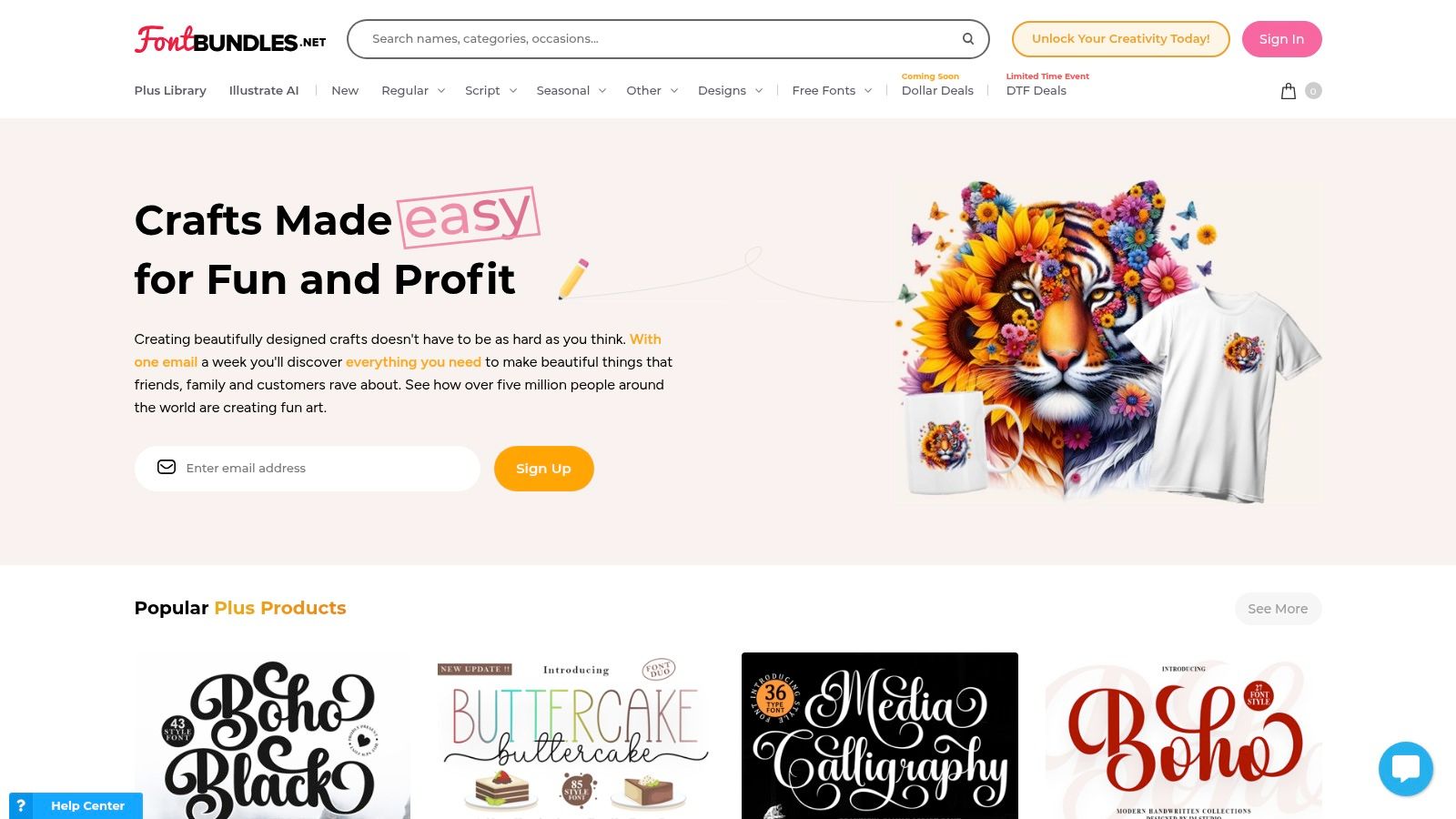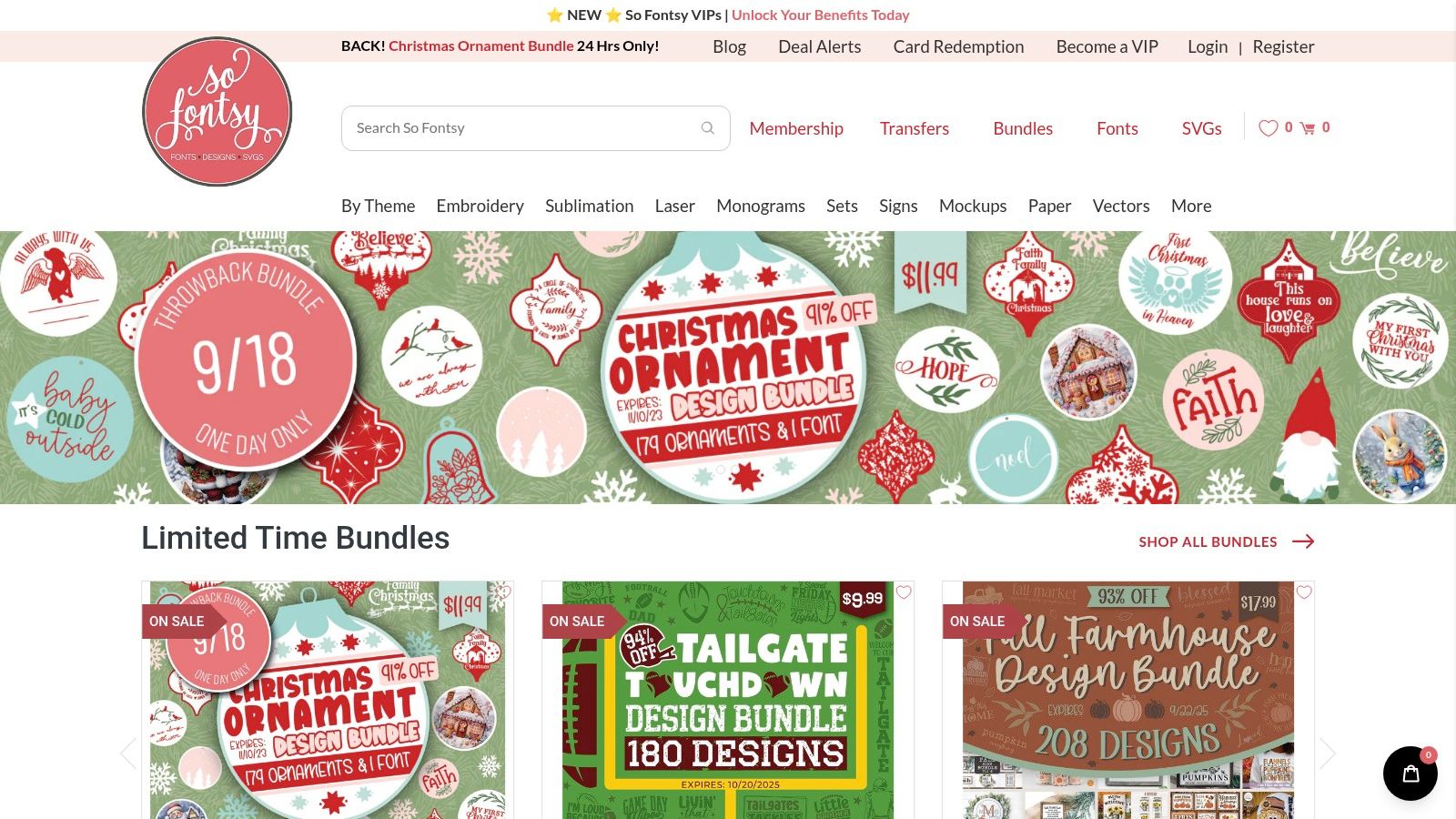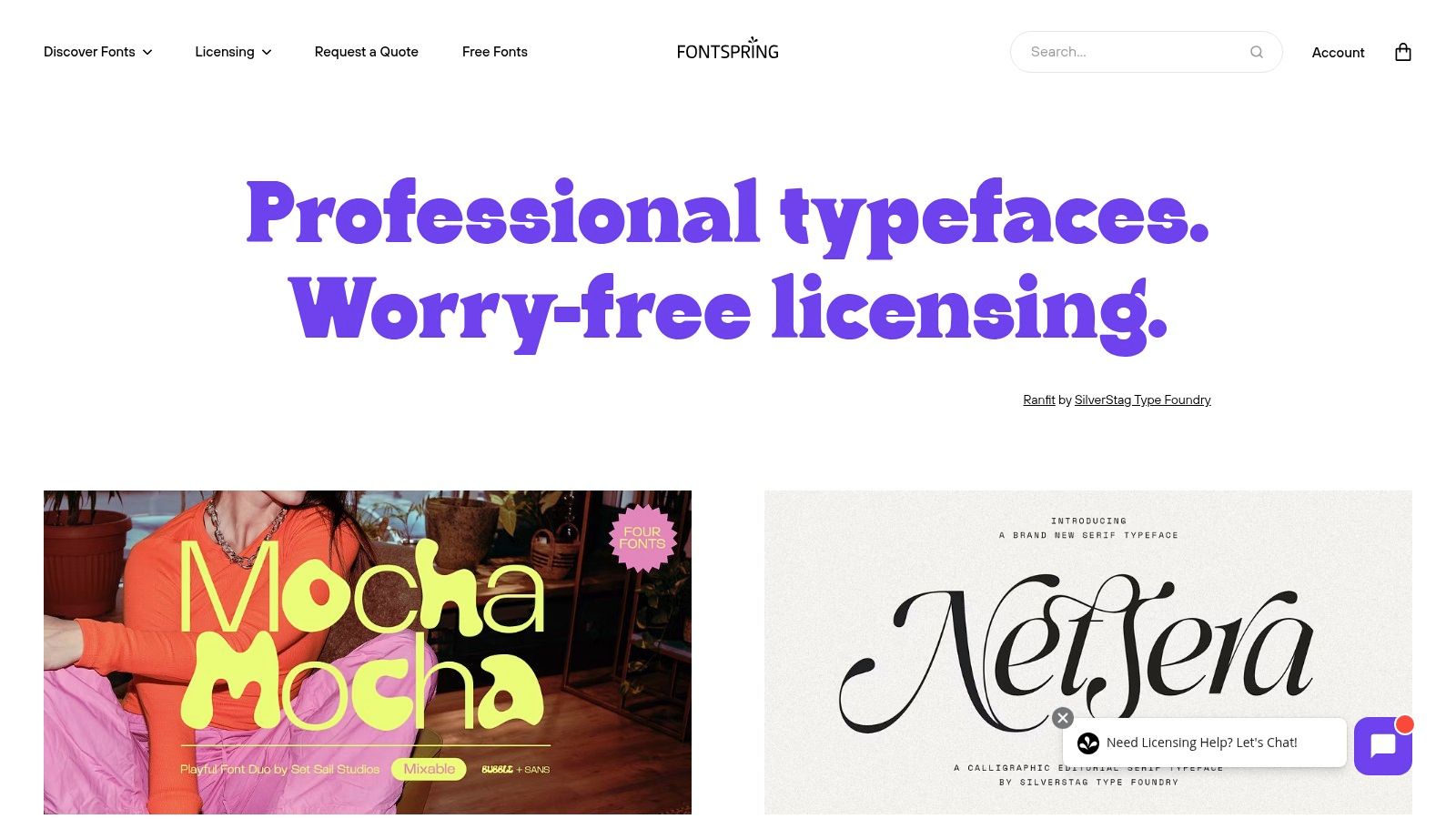
Finding the right fonts for Cricut can transform a good project into a great one. Whether you're making personalised gifts, home décor, or professional products for your small business, the typeface you choose defines the final look. But with countless sources online, how do you find fonts that not only look beautiful but also cut cleanly without tearing your vinyl or cardstock? This guide is your curated roadmap to sourcing high-quality, cut-friendly fonts for Cricut, from comprehensive subscription services to free-for-commercial-use libraries.
This listicle simplifies your search. We will explore top platforms like Cricut Access, Creative Fabrica, and Font Bundles, highlighting their unique strengths for crafters. Each entry includes direct links and key details to help you decide where to build your font library. We will also delve into what makes a font genuinely 'Cricut-friendly' and provide guidance on installing and using them in Design Space to avoid common frustrations. Once you've found the perfect fonts, you might also be interested in how to effectively combine them with imagery, such as when using a photo text editor for unique designs. Get ready to build a font collection that makes every project a masterpiece.
1. Cricut Access: The Official Integrated Library
For crafters who prioritise a smooth, integrated workflow, Cricut Access is the ultimate all-in-one resource. This subscription-based service is built directly into the Cricut Design Space software, providing immediate access to a vast library of fonts for Cricut without ever leaving the application. This eliminates the often-tricky process of downloading, unzipping, and installing third-party fonts, making it an ideal starting point for beginners and a massive time-saver for seasoned users.
The key advantage of Cricut Access is that every single one of its 1,000+ fonts has been optimised for cutting machines. You can create with confidence, knowing that each character will produce clean lines and be easy to weed, whether you're working with vinyl, cardstock, or iron-on materials. The library is also regularly updated with new styles, ensuring your projects always feel fresh and on-trend.
Key Features and User Experience
The user experience is seamless. Within Design Space, fonts are clearly categorised. You can easily filter to see only "Cricut" fonts, which are those included in your Access subscription. This prevents you from accidentally designing a project with a font you need to purchase separately.
- Effortless Integration: Fonts appear automatically in the font dropdown menu in Design Space. There are no manual installation steps required.
- Guaranteed Compatibility: Every font is tested by Cricut to ensure it cuts cleanly and performs well with Cricut machines.
2. Creative Fabrica: The Crafter's Marketplace
For those looking to expand beyond an integrated library, Creative Fabrica is a vast digital marketplace and an essential destination for sourcing unique fonts for Cricut. It stands out due to its sheer volume of craft-focused designs, often bundled together for incredible value. Unlike generic font sites, a significant portion of its library is created specifically by designers who understand the needs of cutting machine users, focusing on smooth lines, easy weeding, and popular crafting aesthetics like farmhouse, script, and monogram styles.
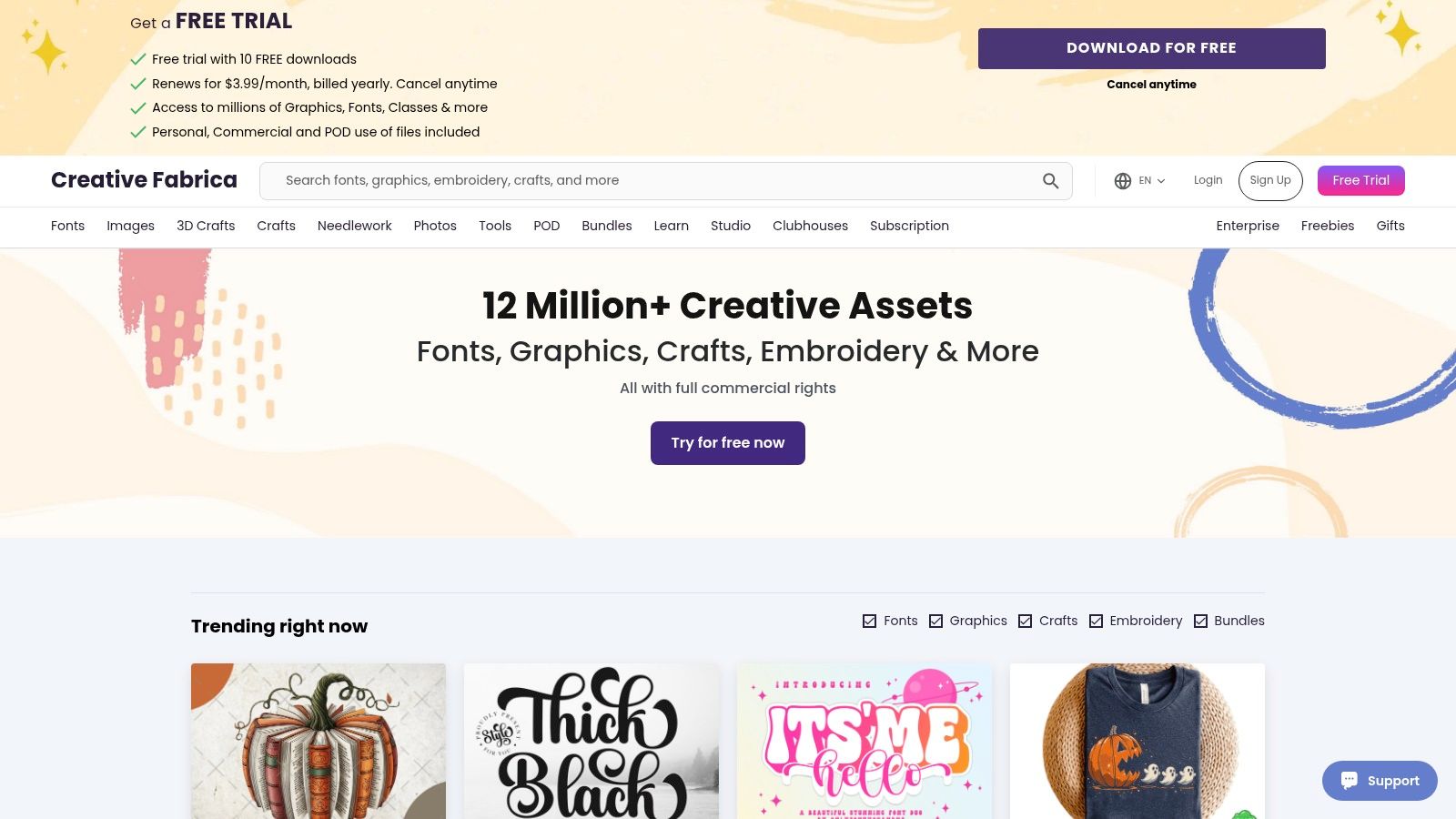
The primary appeal for Cricut crafters is the commercial licence included with every download, which is crucial for anyone running a small business selling personalised items. This platform also supports creators with extensive tutorials and an active community, making it more than just a place to buy files. Furthermore, its innovative AI Spark toolkit includes a Font Spark feature, an AI font generator that allows you to create unique and customisable OpenType fonts from a simple text prompt, offering limitless creative possibilities.
Key Features and User Experience
Navigating Creative Fabrica is straightforward. You can search specifically for "Cricut fonts" or browse categories like "Script & Handwritten" to find suitable options. A key tip is to look for font bundles, which often group dozens of complementary fonts together for the price of one or two individual ones.
Your font library is now poised for growth. By leveraging these resources and keeping technical best practices in mind, you are well-equipped to bring any vision to life. The ideal font is out there, ready to become the centrepiece of your next masterpiece.